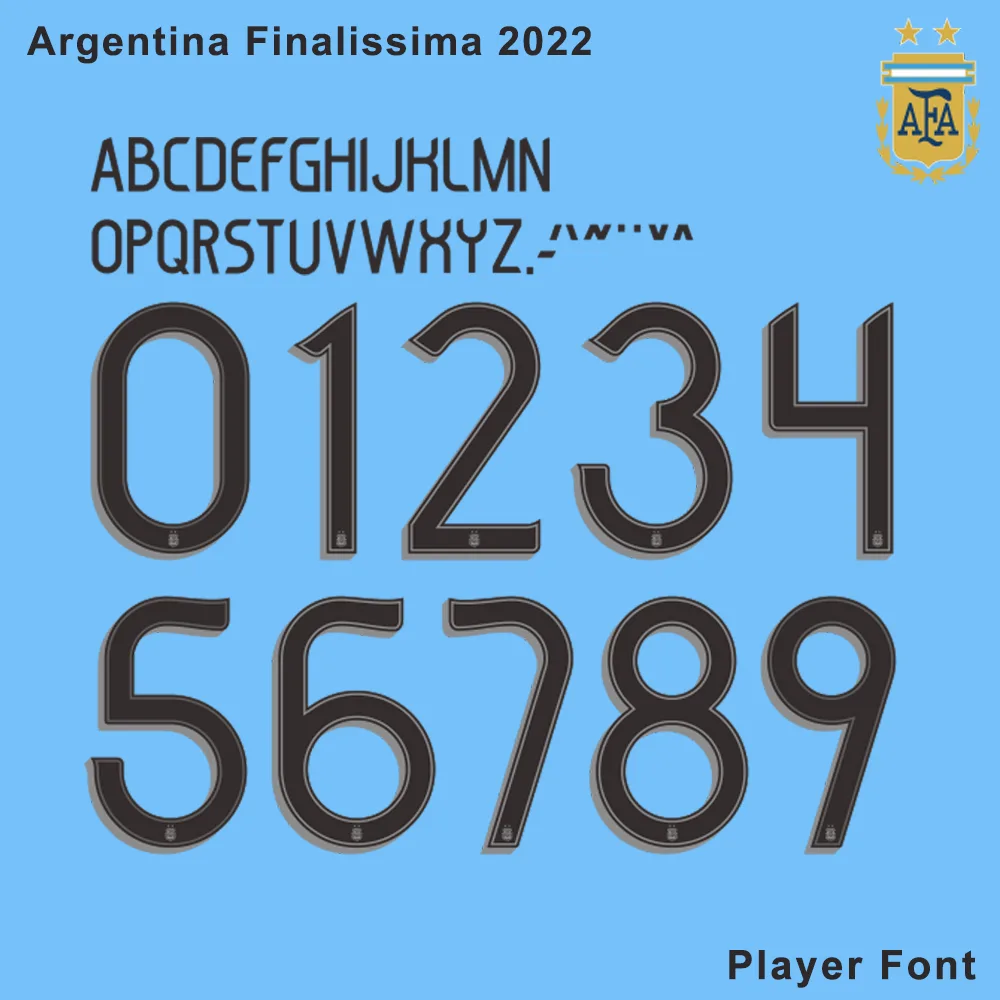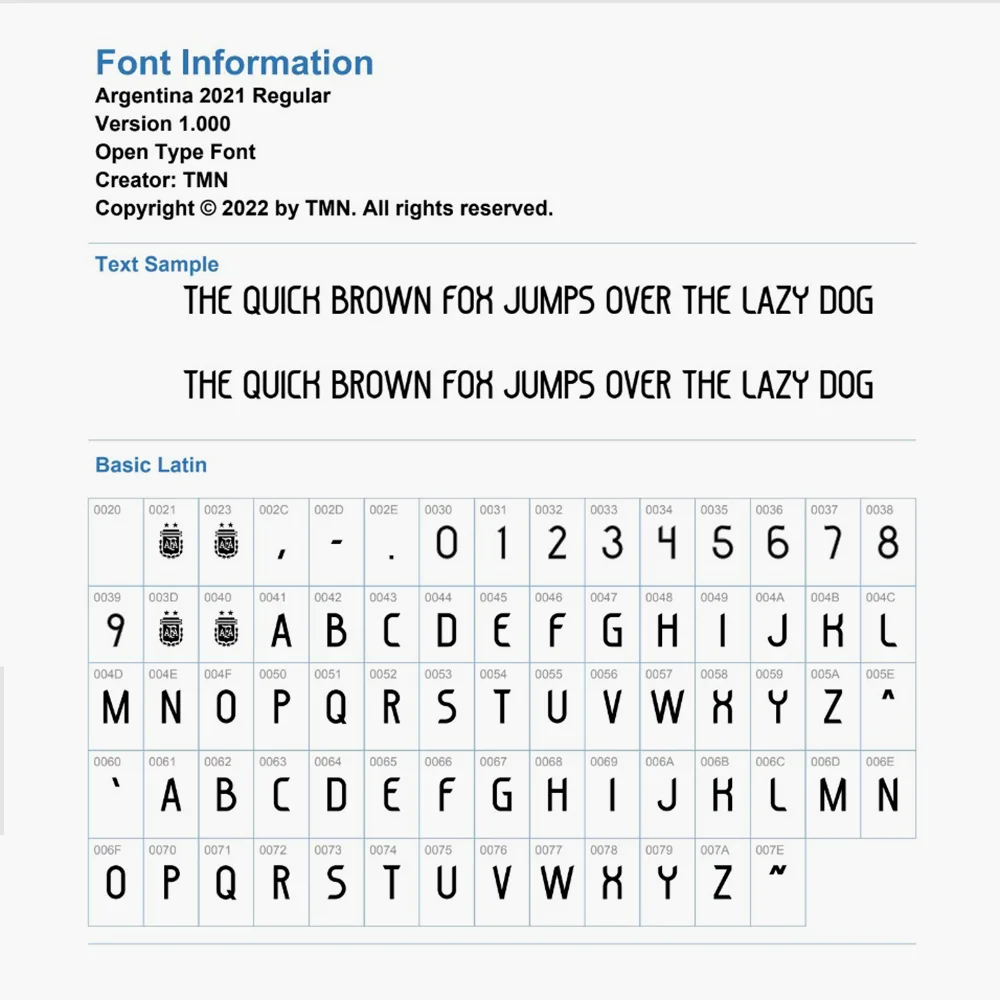
The Champions’ Typography: Argentina Finalissima 2022 Font
Relive the glory of the 2022 Finalissima at Wembley with the official-style Argentina Finalissima 2022 Font. This iconic nameset was worn by Lionel Messi and the “Scaloneta” as they lifted the trophy. Its clean, sharp, and modern design has become a symbol of Argentina’s winning era.
Authentic Trophy-Winning Style: Meticulously recreated to match the proportions and spacing used on the pitch against Italy.
AFA Identity: Every number includes the official Argentine Football Association (AFA) crest at the base for maximum authenticity.
Full Character Set: Complete uppercase alphabet and numbers 0-9.